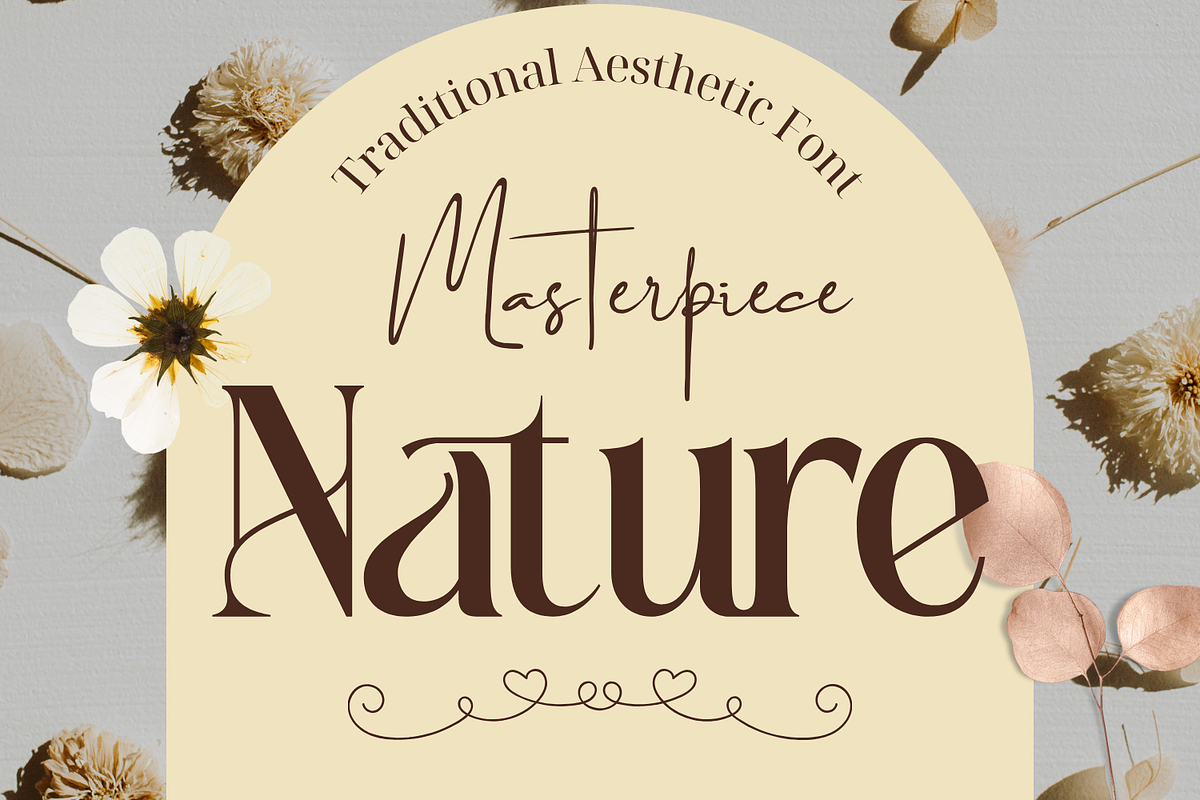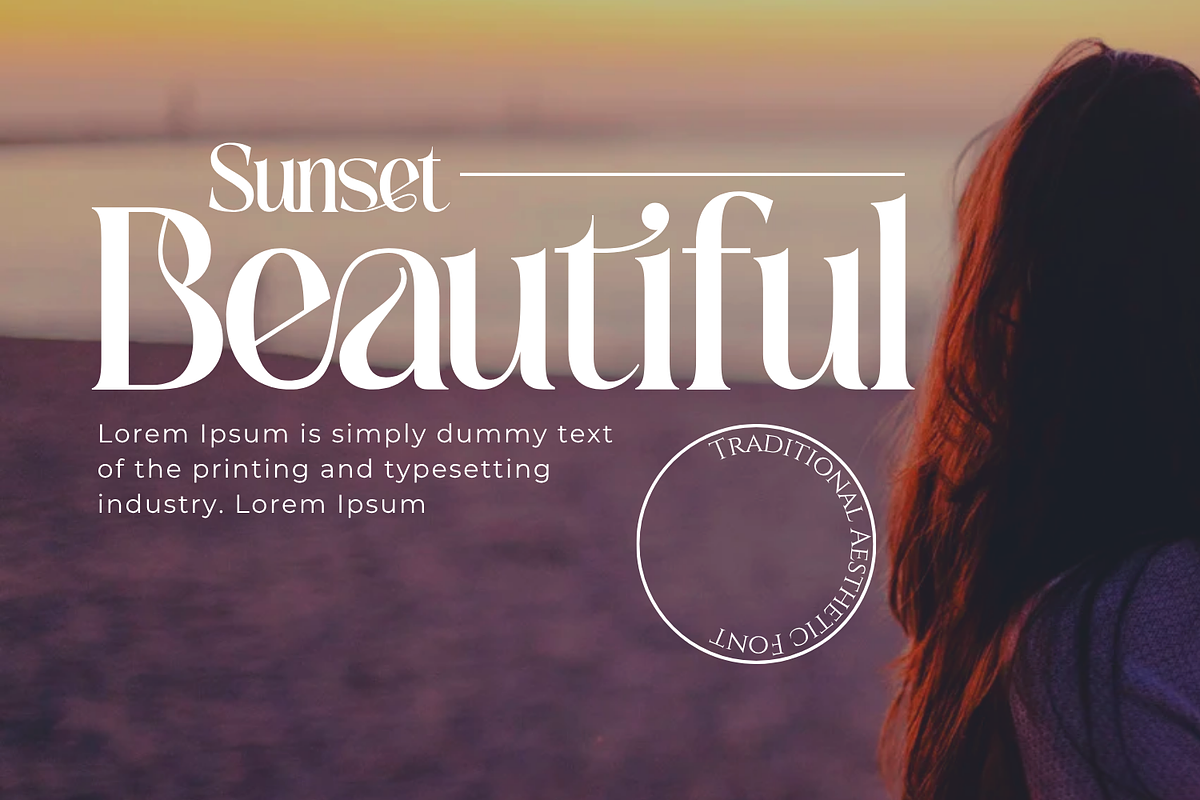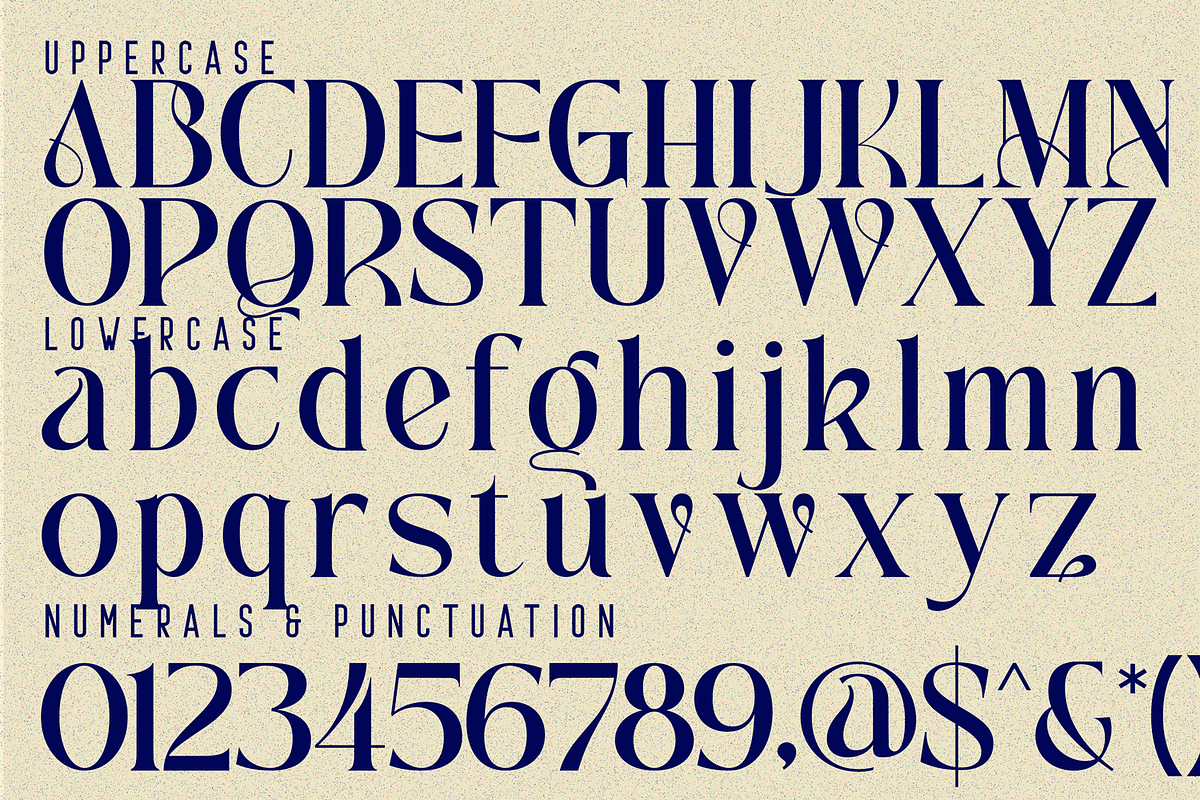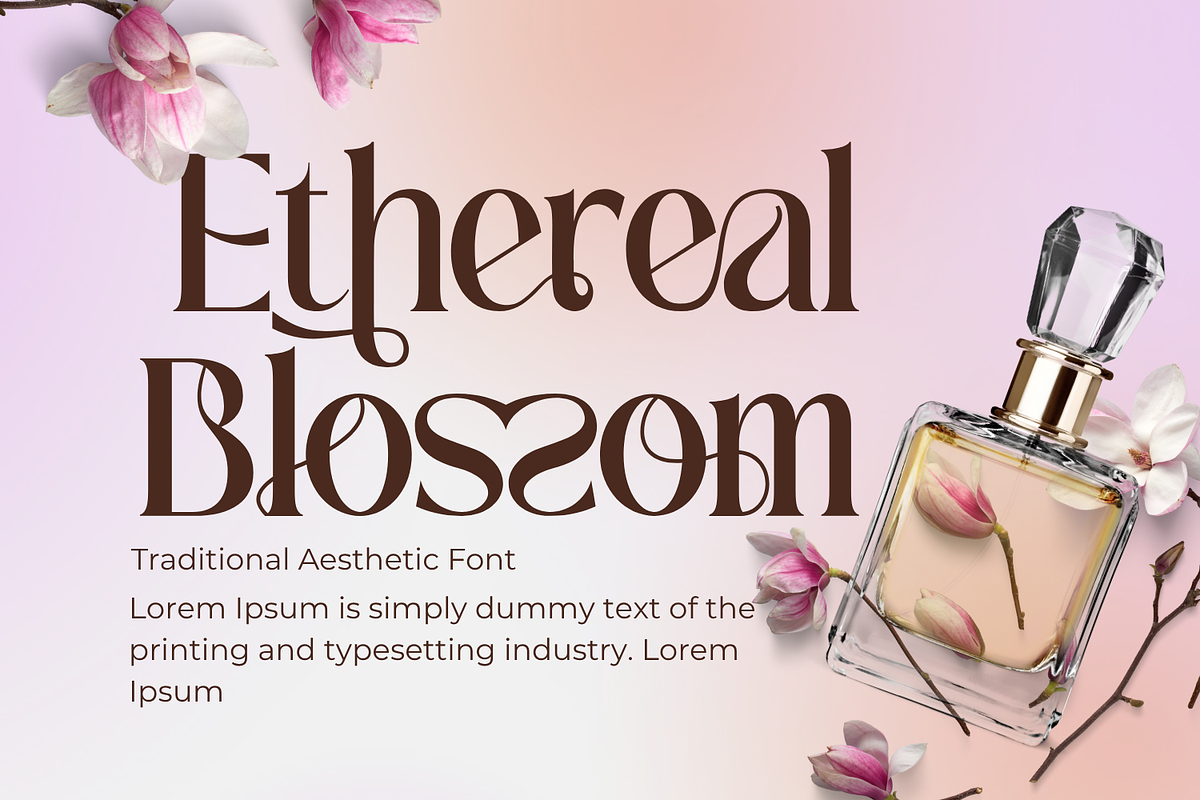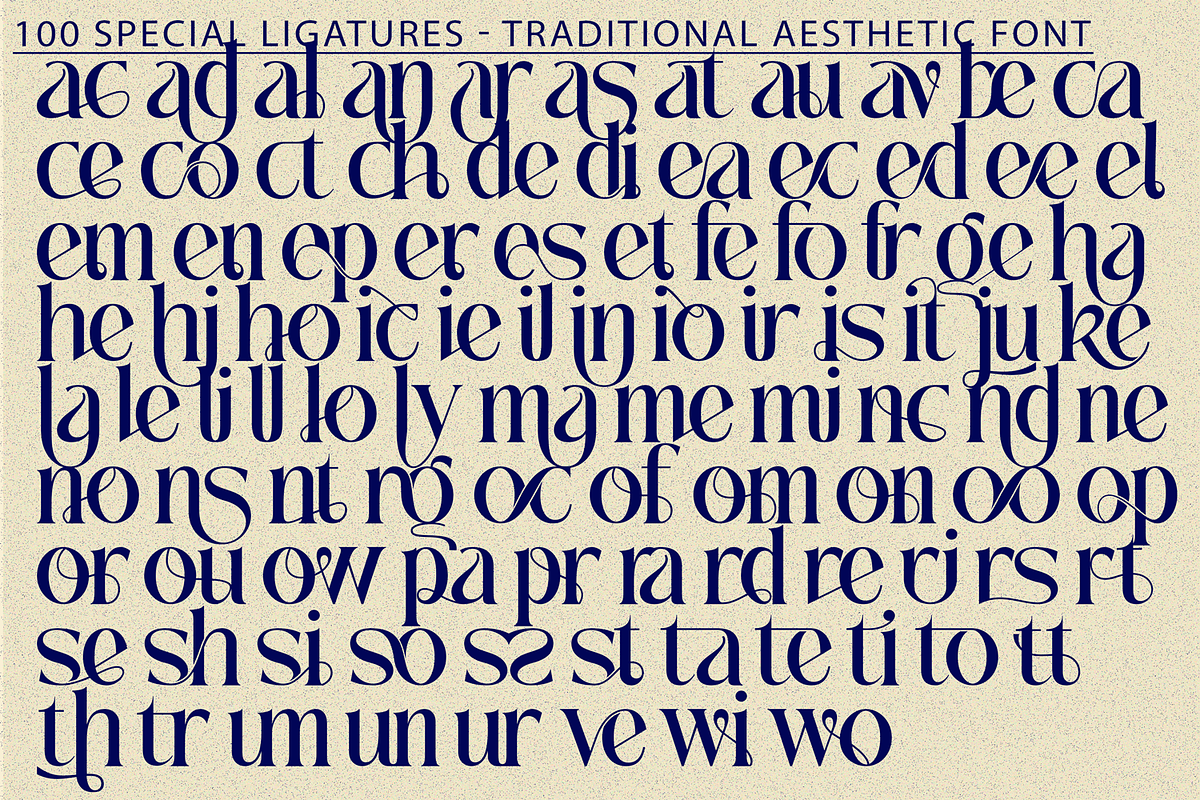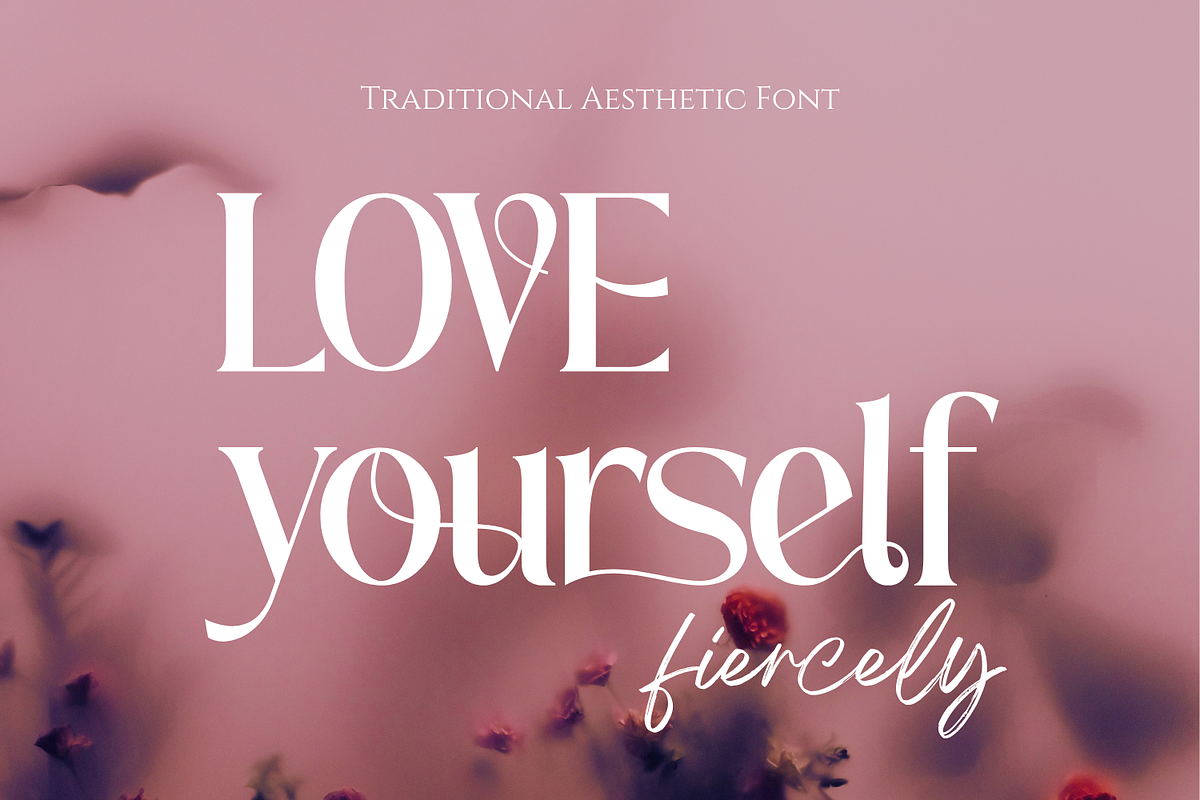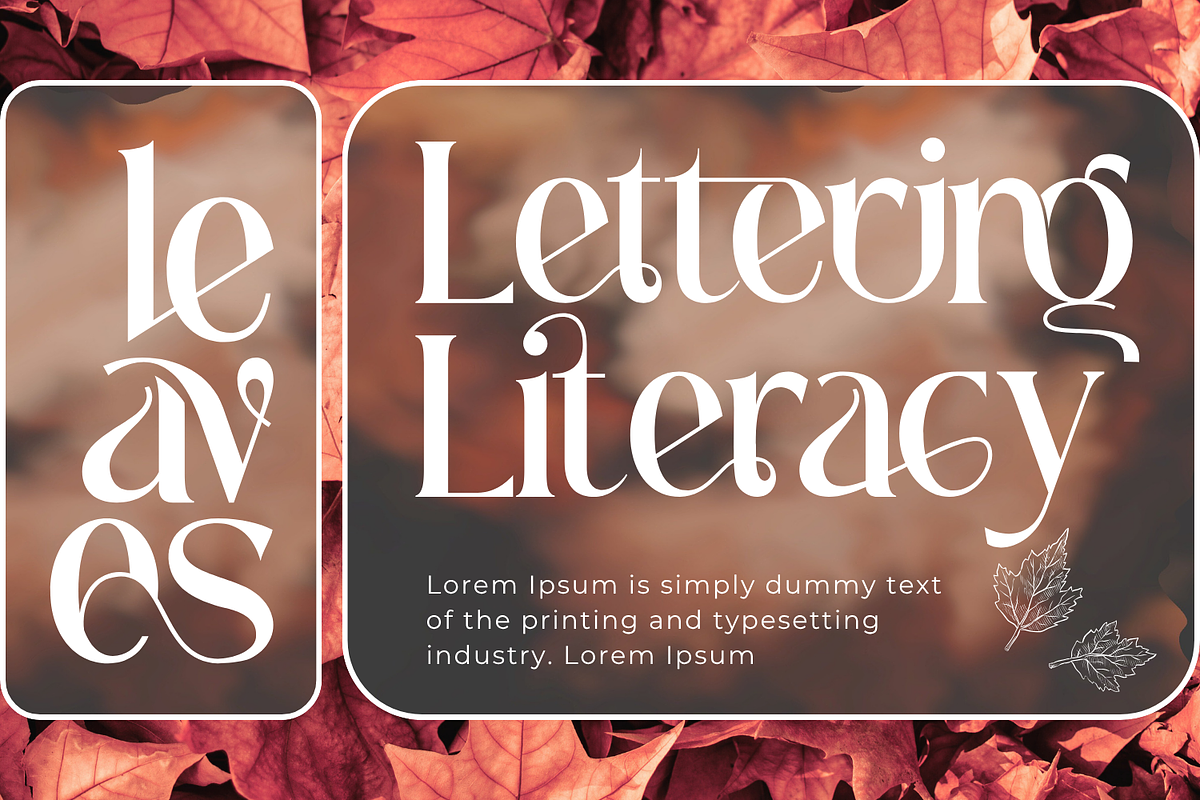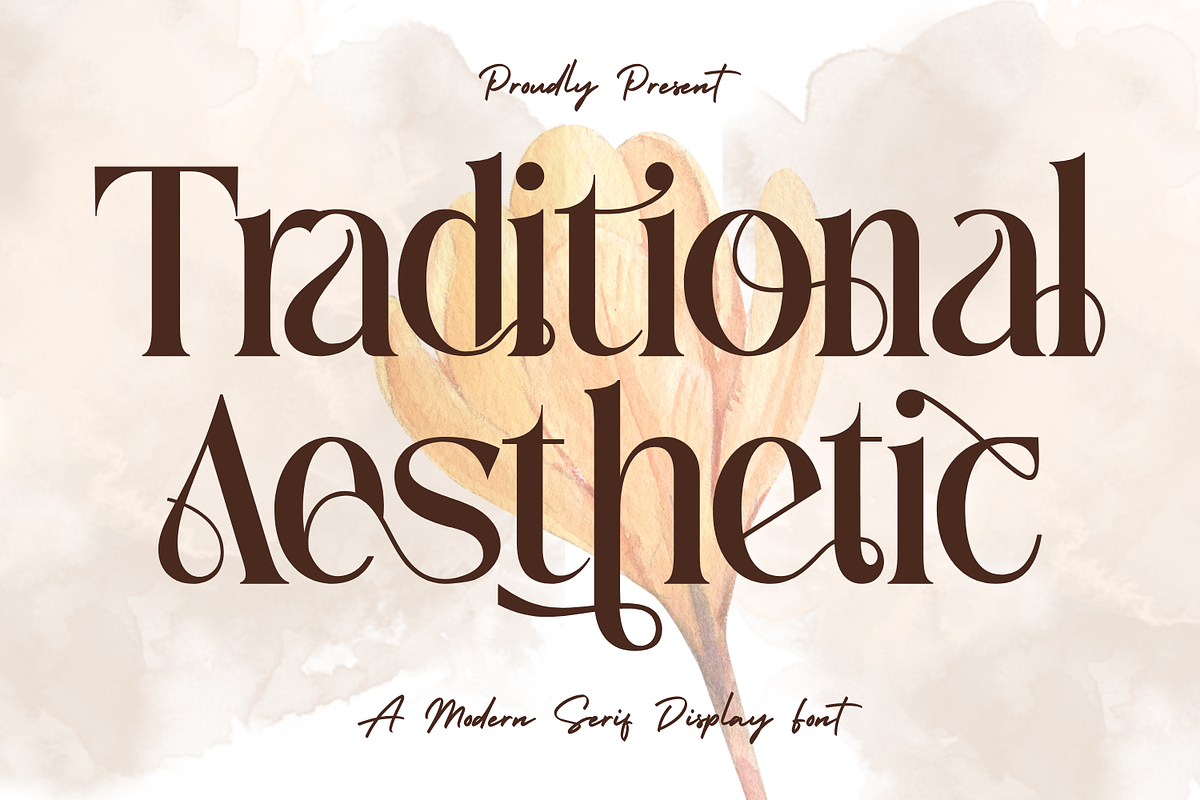
Traditional Aesthetic - Modern Serif
Traditional Aesthetic - Modern Serif Font is an elegant modern serif display font that blends classical refinement with artistic sophistication. It features tall, graceful letterforms with refined serifs and gentle curvature, while subtle calligraphic flourishes and high contrast between thick and thin strokes give it a timeless, luxurious feel. Each letter is thoughtfully crafted, combining traditional serif foundations with creative ornamental details that evoke a sense of warmth and nostalgia. This font captures a perfect harmony between traditional charm and modern aesthetics, making it ideal for branding, magazine titles, wedding invitations, art posters, and editorial designs that seek to convey beauty and sophistication. The elegant alternates and smooth ligatures enhance its versatility, allowing designers to achieve both classical and contemporary moods.
- Uppercase & Lowercase Letters
- ~100 Special Ligatures
- Accented Characters for multilingual support
About 100 ligatures combined with Stylistic Alternates Font:
ac ad al an ar as at au av be ca ce ch co ct de di ea ec ed ee el em en ep er es et fe fo fr ge ha he hi ho ie ic il in io ir is it ju ke la le li ll lo ly ma me mi nc nd ne ng no nt ns oc of om on oo op or ot ou ow pa pr ra rd re ri ro rs rt se sh si so ss st ta te th ti to tr tt um un ur ve wi wo